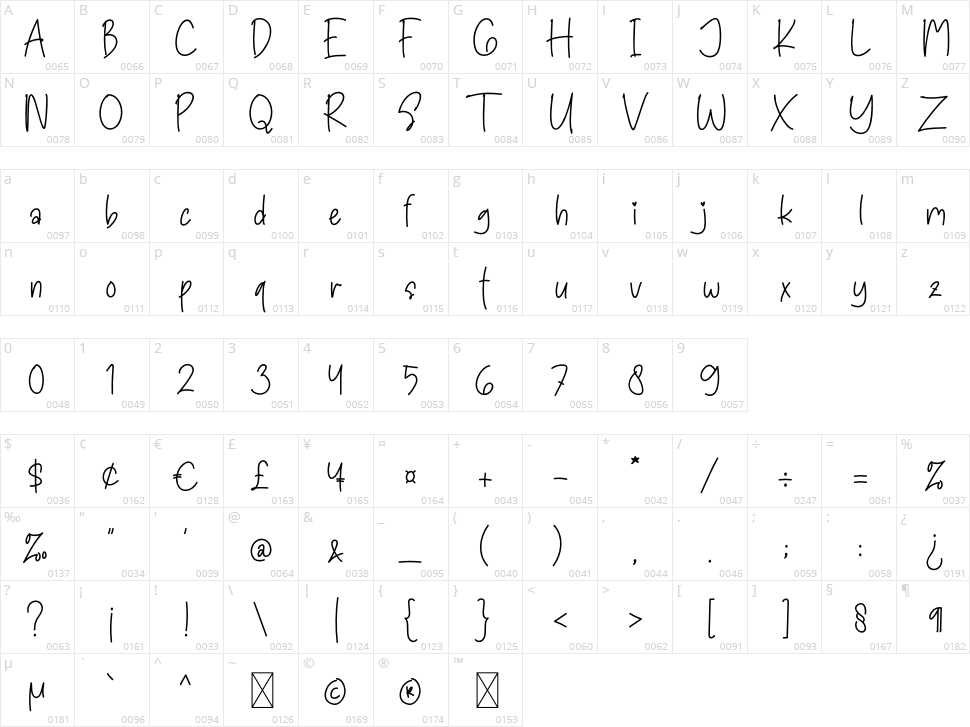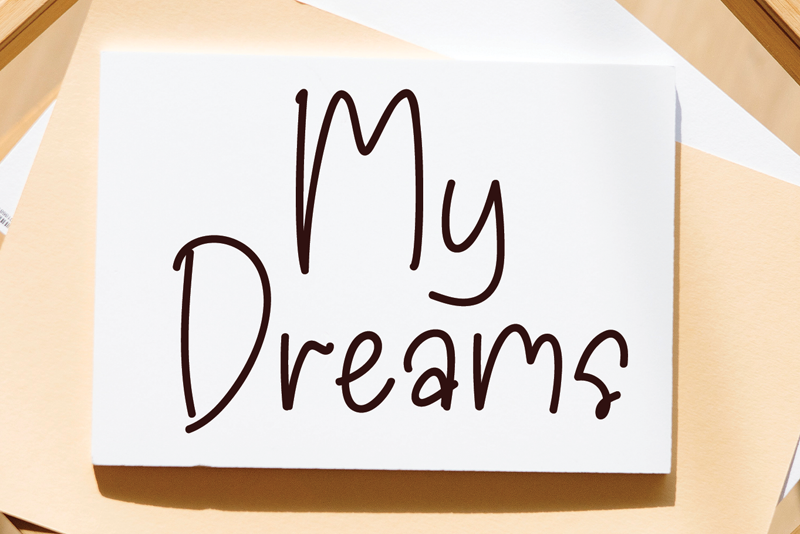
My Dreams
Note of the author My Dreams is a thin-lettered handwritten font masterfully crafted to become a true favorite. Contemporary and fresh, it is perfect for any design you wish to create. Add it to your creative projects and make the outstanding!